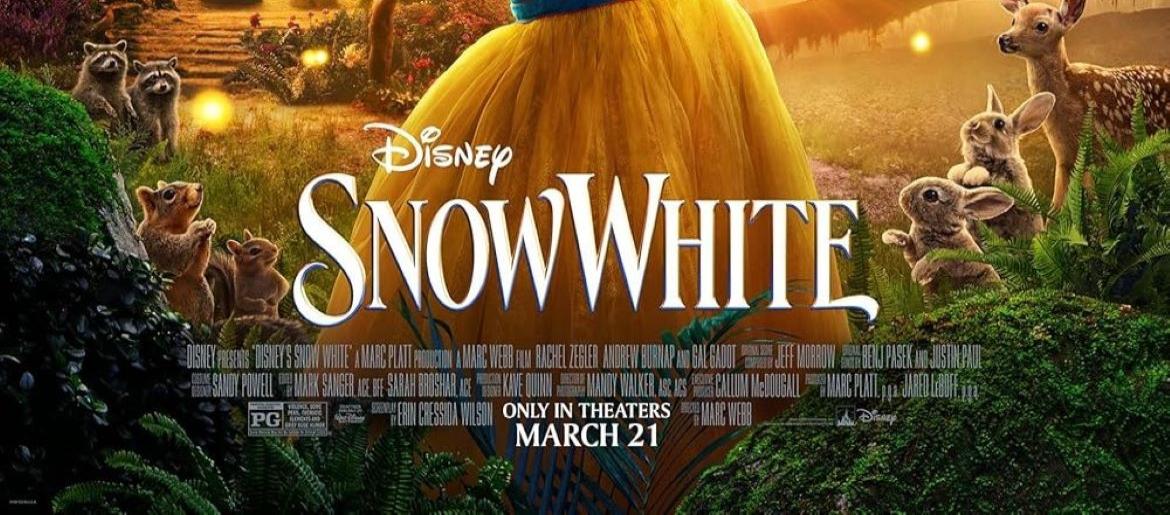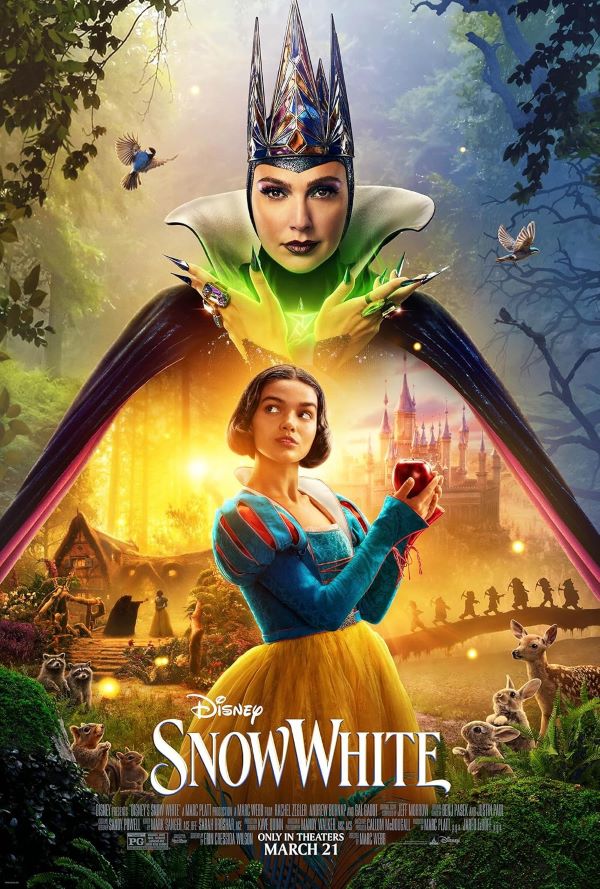
Snow White Font
What Font is Snow White?
The Snow White Font used to evoke the classic fairytale aesthetic is most likely the typeface known as Serenity, a free-for-personal-use font. It features soft curves, gentle lines and a whimsical flair that pairs well with storybook themes and elegant design. Because Serenity is available free for personal use, it’s a great choice for creative projects that aim to capture the enchanted, classic look of the Snow White title visuals.
About Snow White
Snow White is the timeless fairy tale of a princess, a jealous queen, a mirror that speaks the truth and seven dwarfs who protect her in the forest. The story has been told and retold in films, books and theatre for decades, enchanting audiences of all ages. The font choice reflected in designs inspired by Snow White often mirrors the magical and delicate nature of the story—combining elegance and a fairy-tale charm that feels both nostalgic and inviting.